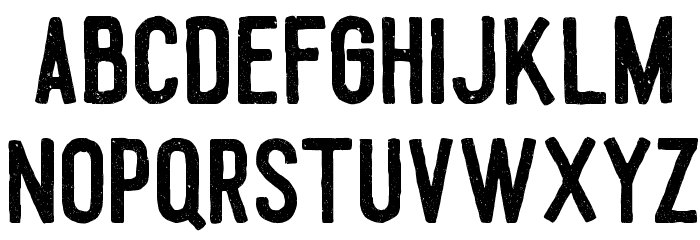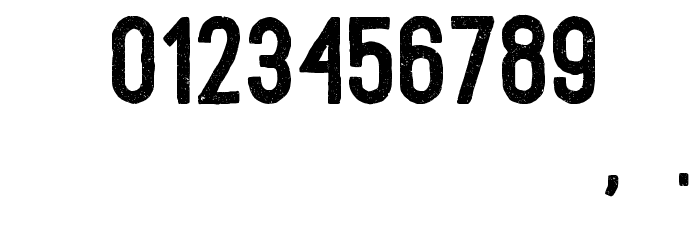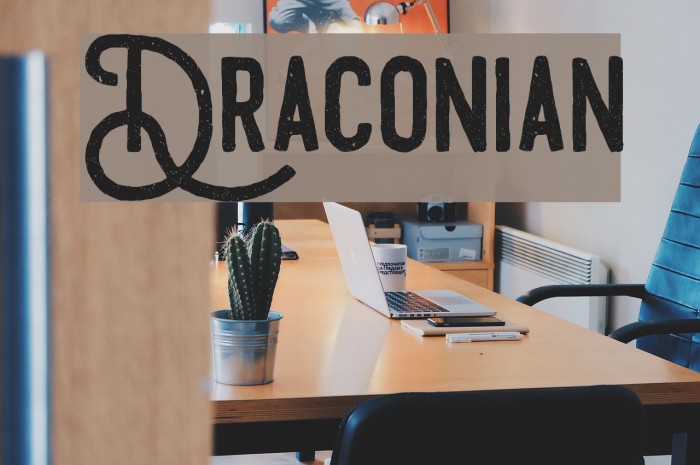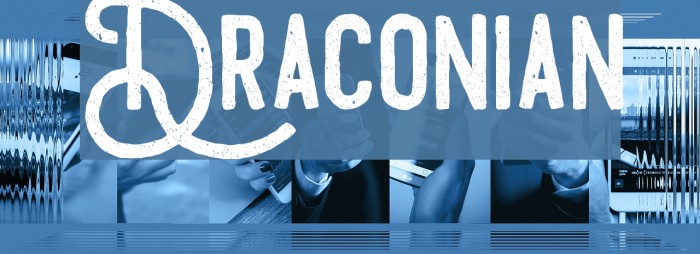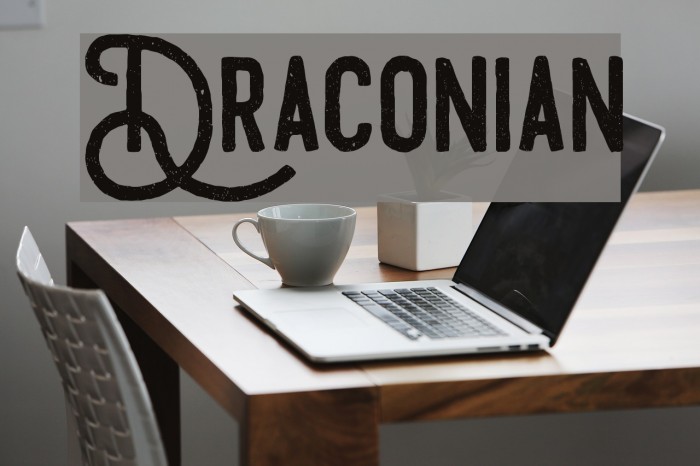
Draconian Font
This font features a unique combination of styles, with the first set of uppercase letters displaying a decorative, vintage flair with intricate curves and loops, reminiscent of old-fashioned script. The second set of uppercase letters is bold and robust, with a distressed texture that adds a rugged, industrial feel. The numbers follow the same bold style, maintaining consistency with the second set of uppercase letters. This dual-style approach offers versatility, allowing for both elegant and strong visual statements.
A versatile font combining vintage decorative script with bold, distressed uppercase letters.
- Proposed Projects: Ideal for branding projects, vintage-themed designs, posters, and packaging that require a mix of elegance and strength.
- Overall Style: Vintage, Decorative
- Use Case: Logos, Posters, Branding